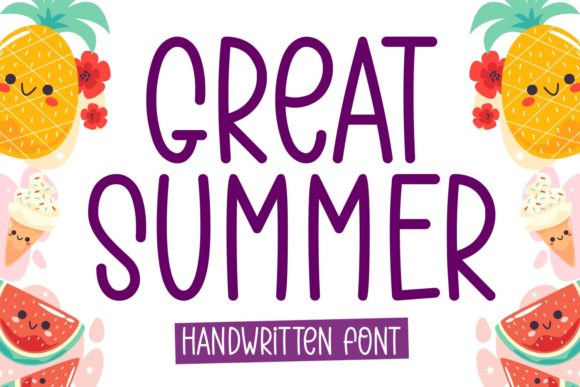
Introducing Great Summer Font, the ultimate script font for all your design needs! Created by the talented Keithzo from 7NTypes, this cute and thin lettered handwritten font is here to elevate your creative projects to new heights. Whether you are a UI designer, a teacher, or simply someone who appreciates beautiful typography, Great Summer Font is the perfect choice for you.
As you dive into the world of Great Summer Font, you'll discover a font family that brings a touch of authenticity and realism to your designs. With its delicate strokes and charmingly imperfect characters, this font will effortlessly capture attention and convey a sense of warmth and personality. It's like having your own personal calligrapher at your fingertips!
Are you searching for the best fonts for UI design? Look no further. Great Summer Font is specifically crafted to enhance user interfaces, making your apps and websites more visually appealing and user-friendly. With its clean and legible style, it ensures readability while adding a touch of flair. Your users will be captivated by the seamless blend of functionality and aesthetics.
Teachers, rejoice! Great Summer Font is a must-have for all your chalkboard quotes and teaching materials. Its playful yet professional appearance will make learning an enjoyable experience for your students. Leave a lasting impression with beautifully designed handouts, worksheets, and presentations. Watch as your students engage and connect with the content on a whole new level.
But the magic of Great Summer Font doesn't stop there. Its versatility extends beyond the classroom and digital screens. Let your imagination run wild as you explore the endless possibilities. Use it for branding, packaging, social media graphics, invitations, and so much more. Create eye-catching designs that leave a lasting impression on your audience.